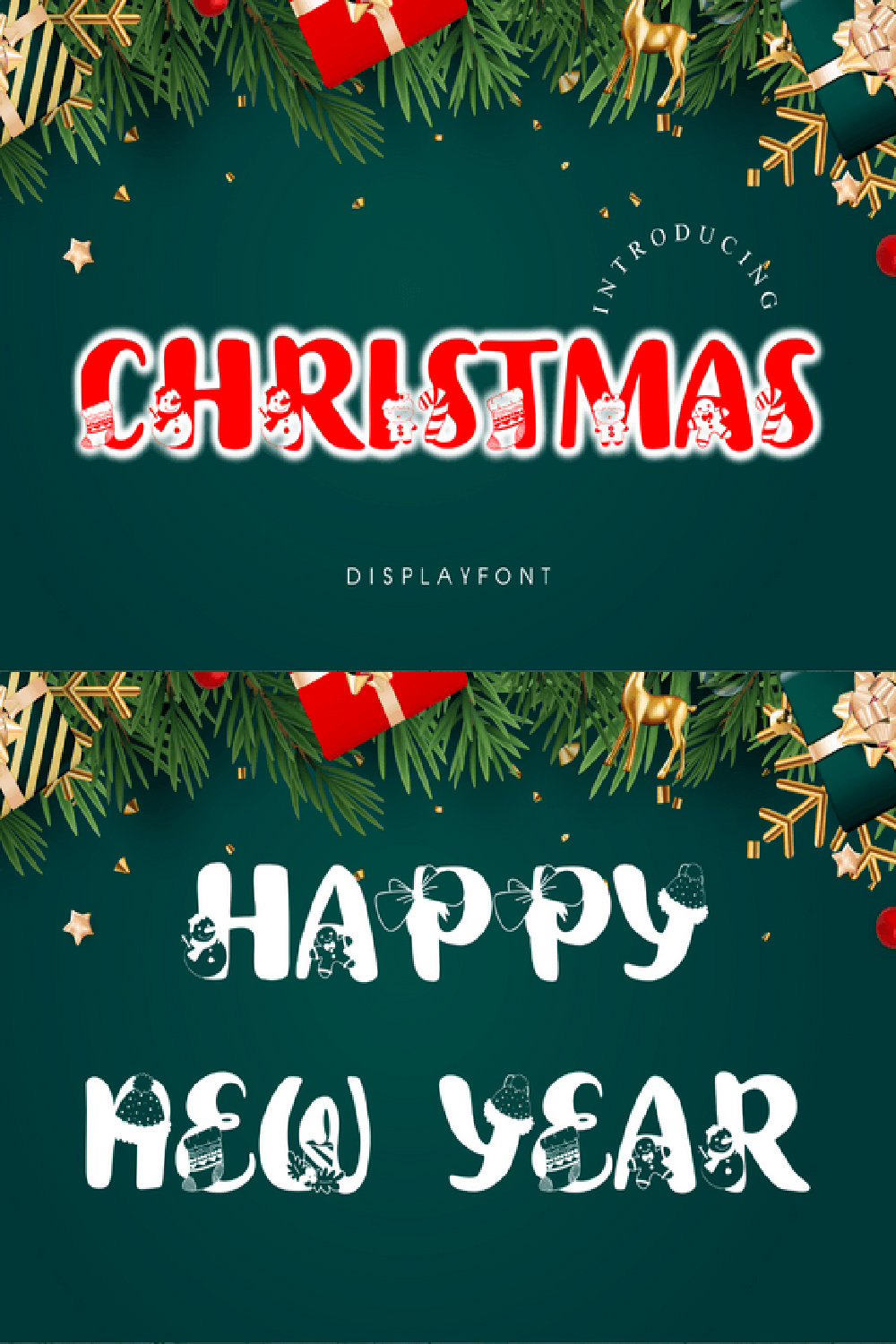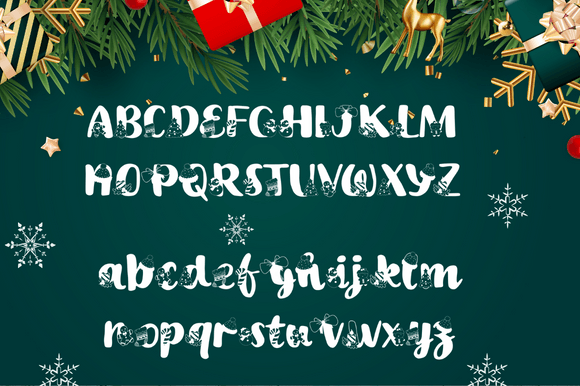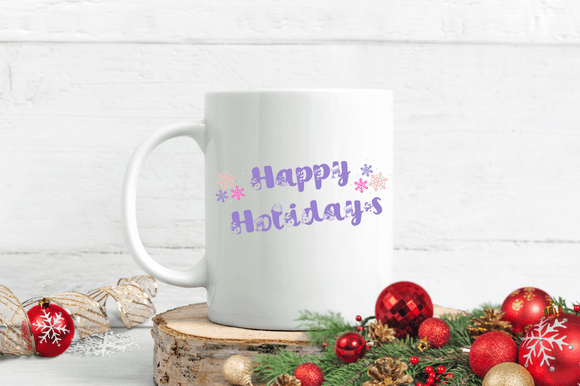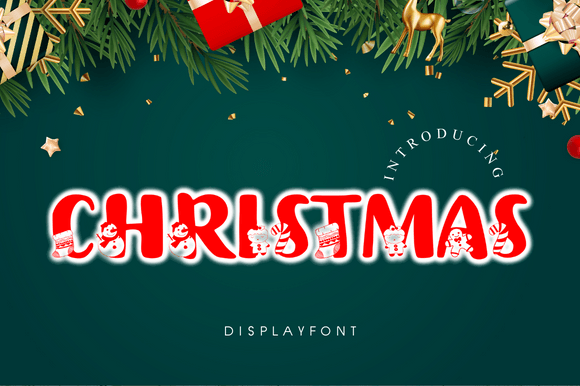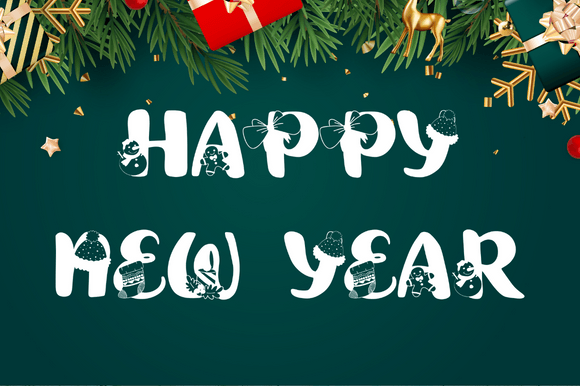
About the Christmas Font
Explore the possibilities with Christmas Font, a font that offers both beauty and functionality. Christmas Font: A festive and decorative typeface where each letter is adorned with iconic Christmas elements like hats, candy canes, socks, and more. Perfect for adding holiday cheer to your designs and messages!